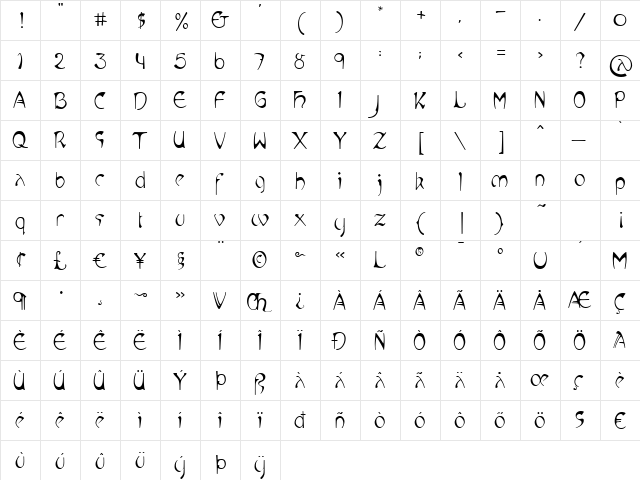
P22 Mucha Regular
| Foundry | P22 type founry / International House of Fonts |
| Designer | Christina Torre |
Design Context for P22 Mucha Typeface
P22 Mucha is a composed and adaptable typeface that performs quietly and consistently across a wide range of design contexts.